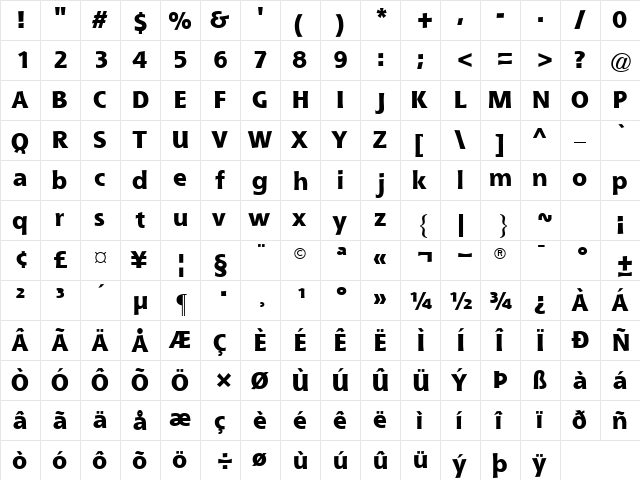
QueBlackSSK Regular
Design Context for QueBlackSSK Typeface
QueBlackSSK offers clean, dependable letterforms without strong stylistic allegiance, making it a practical choice for designers who need flexibility.